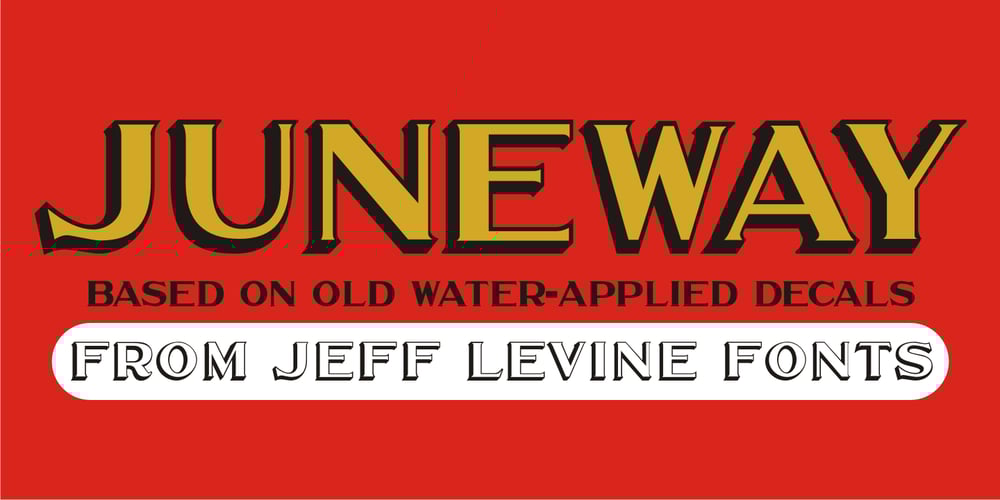
Juneway JNL Font Family was designed by Jeff Levine and published by Jeff Levine. Juneway JNL contains 1 styles and family package options. Jeff Levine acquired a set of original water-applied decals made by the Duro Decal Company of Chicago (now Duro Art Industries) and painstakingly recreated one of the classic hand-drawn typefaces from the Duro line. Named after the street where the company is located, Juneway JNL is an authentic reproduction for the computer-based designer.